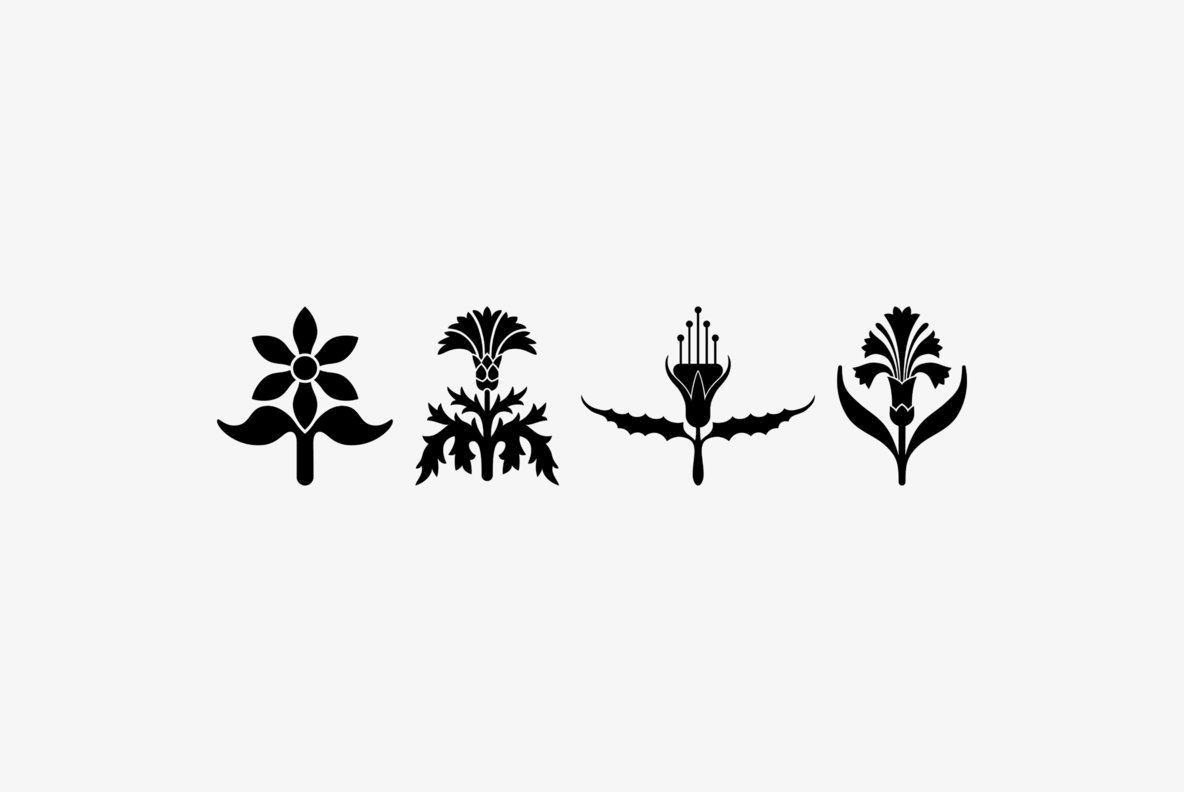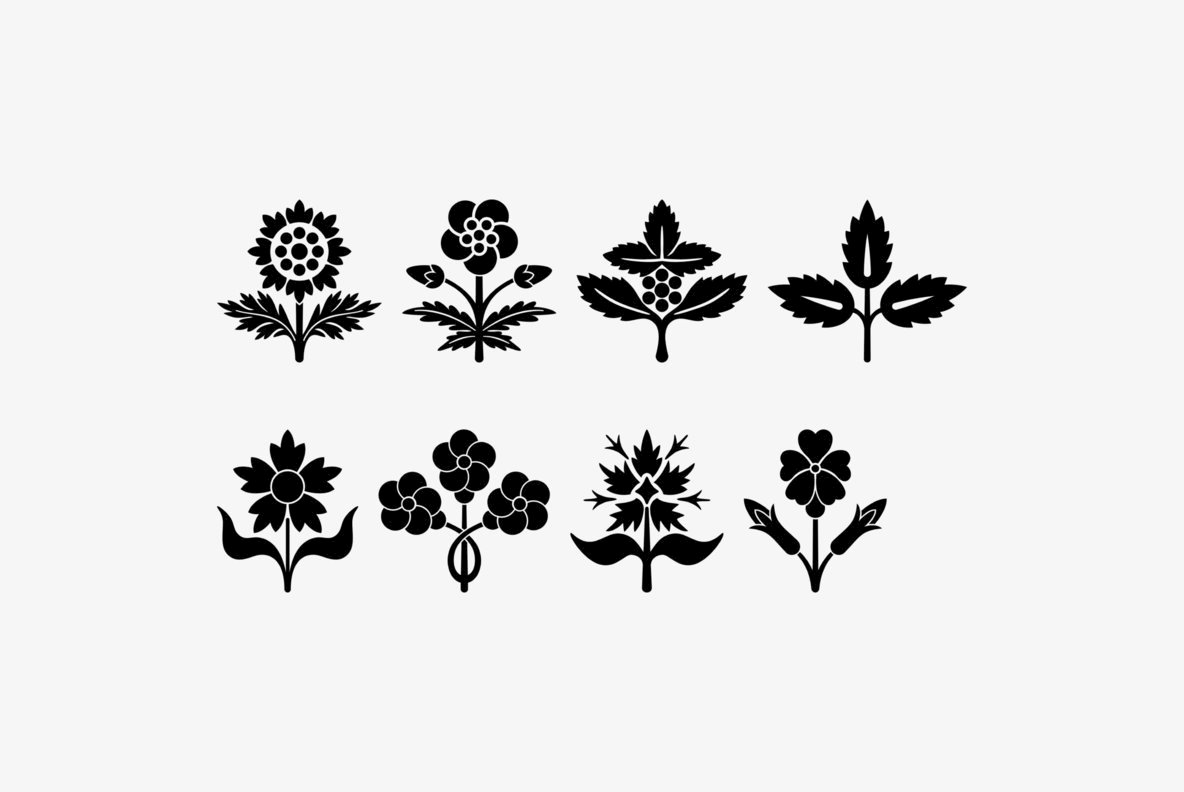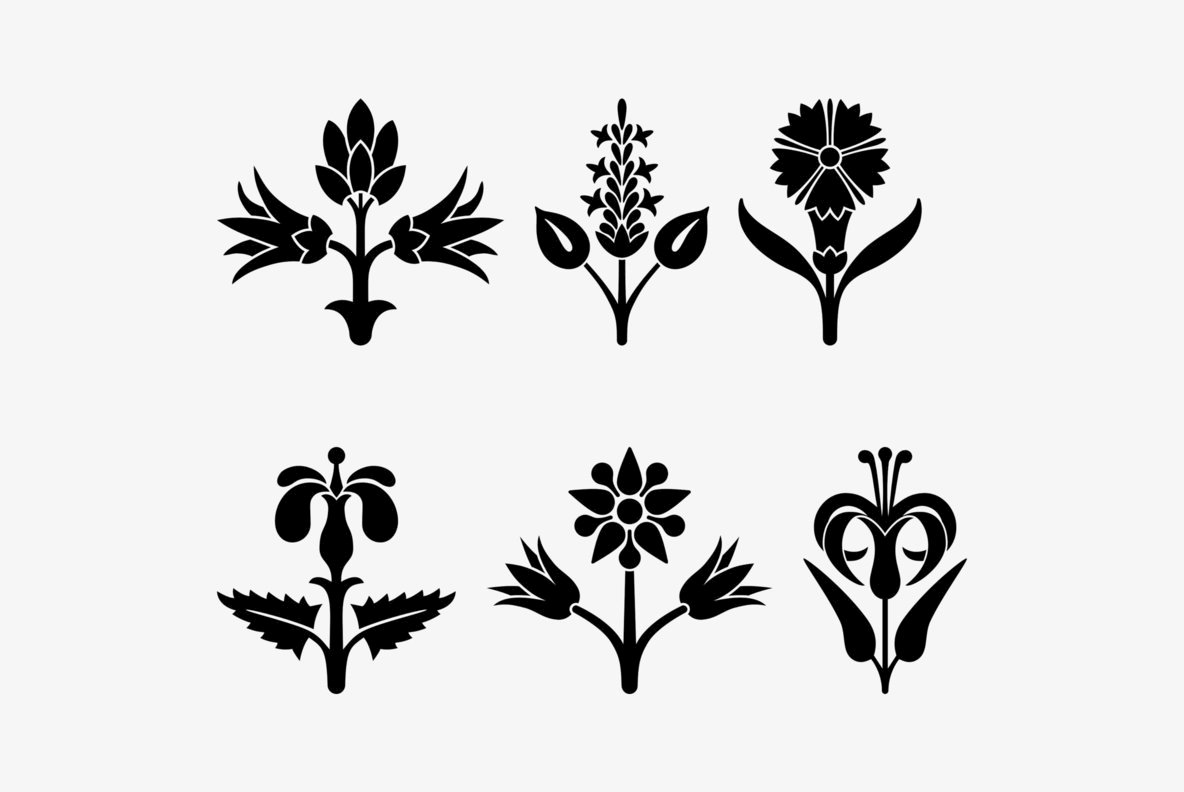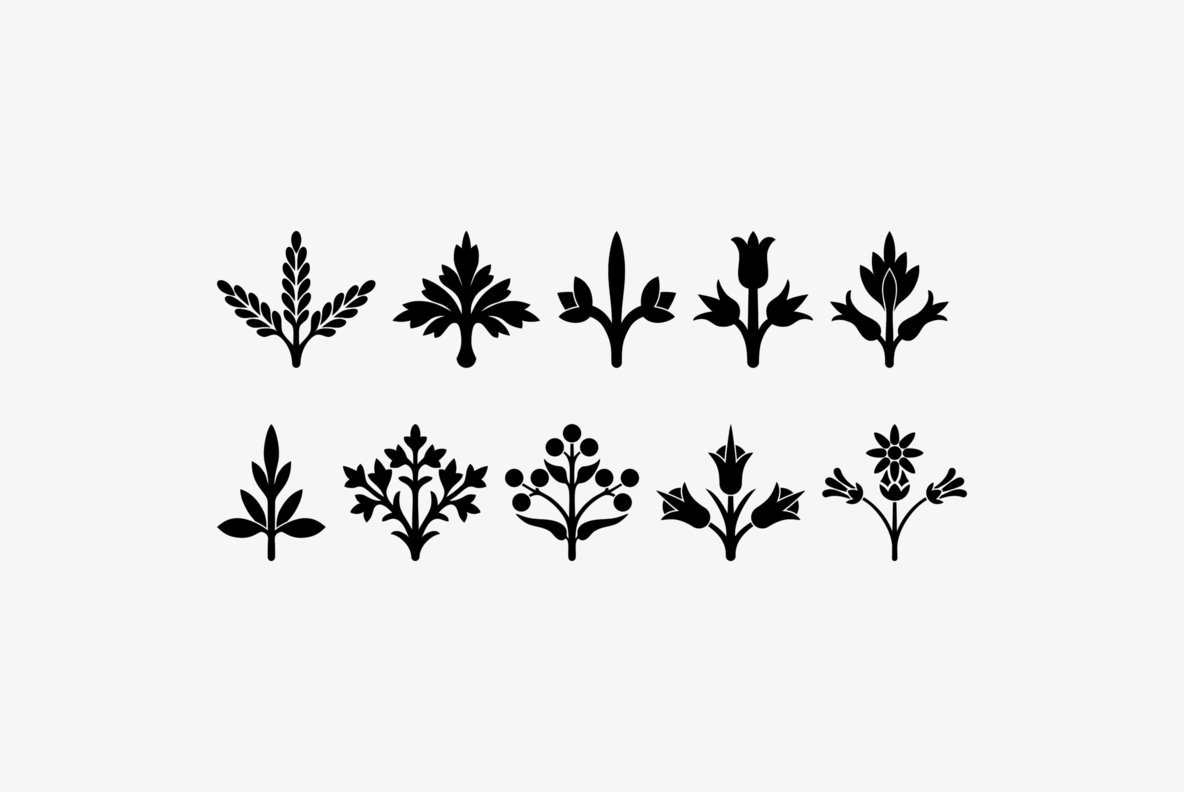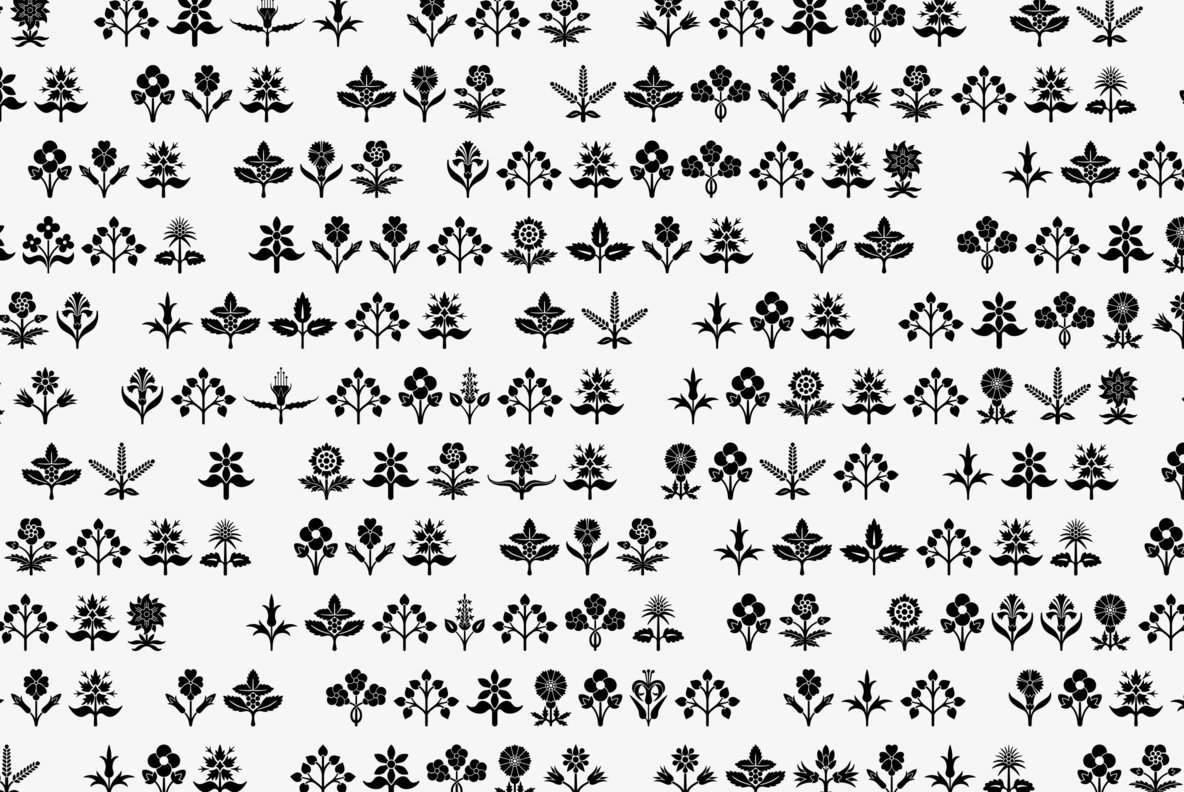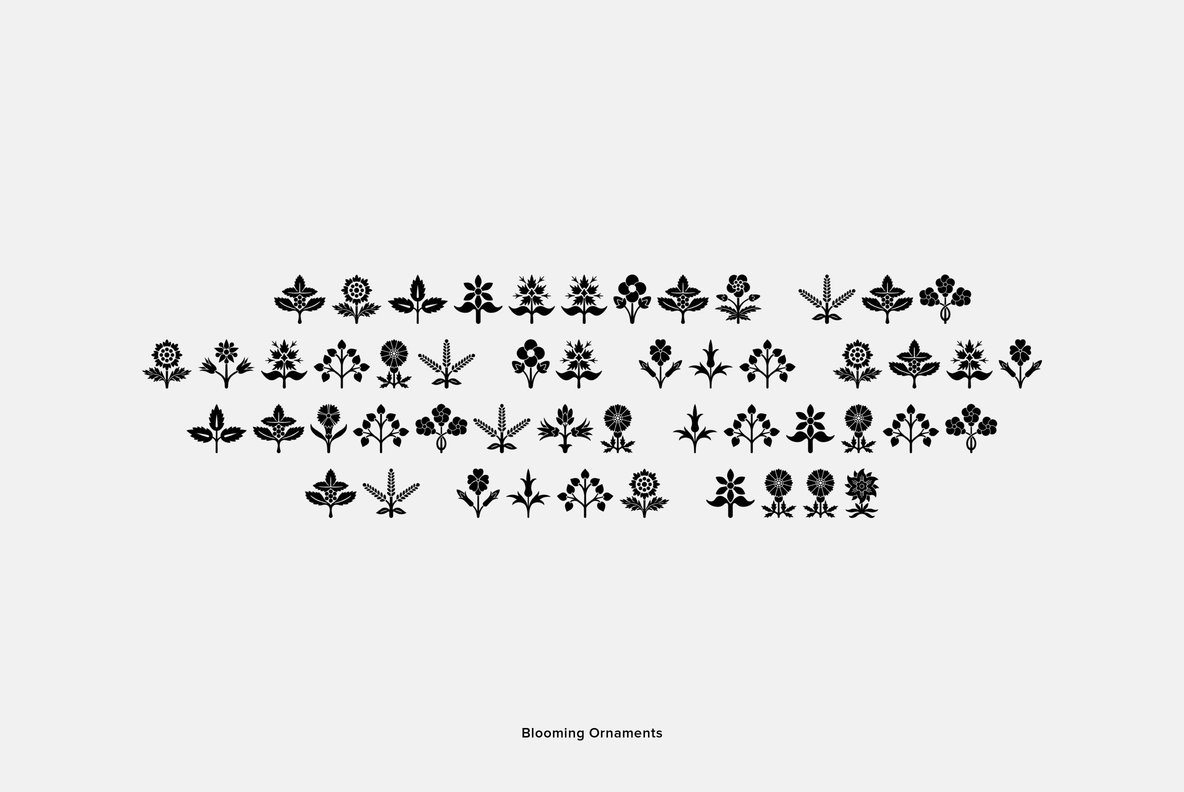
Blooming Ornaments 1
Blooming Ornaments was inspired by patterns of the Middle Ages. There is an assortment of 47 ornaments located under the character set keys.